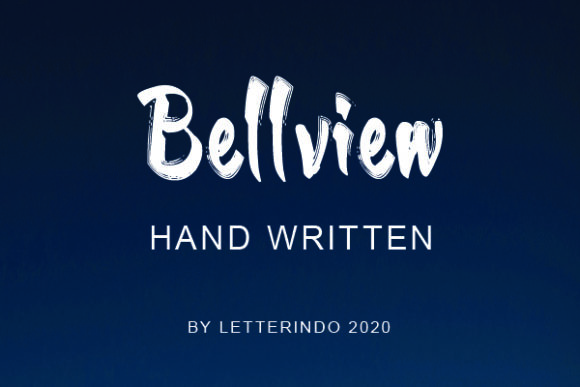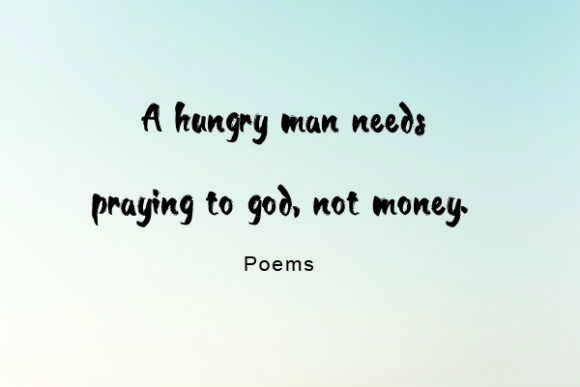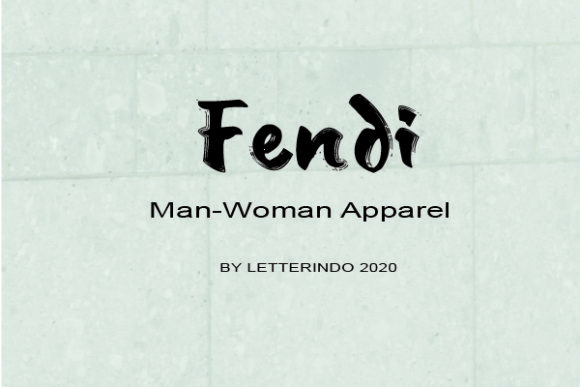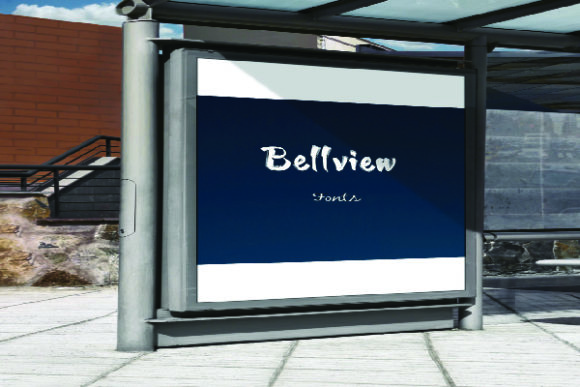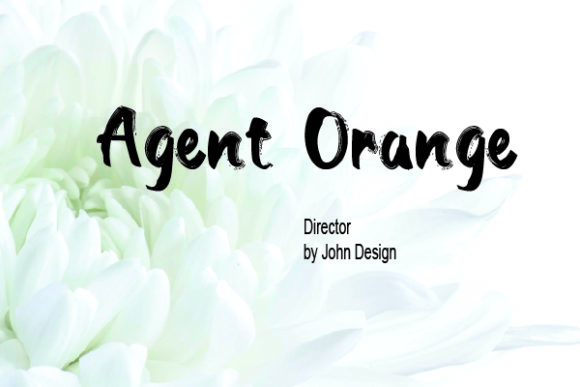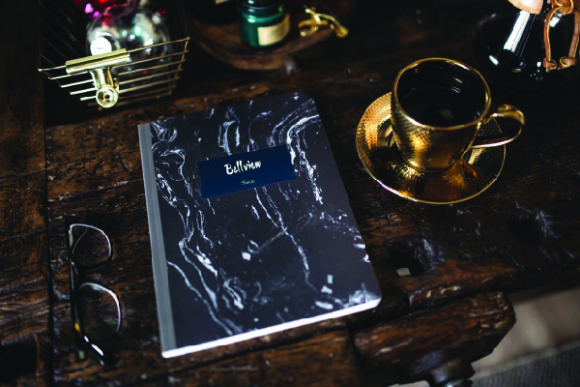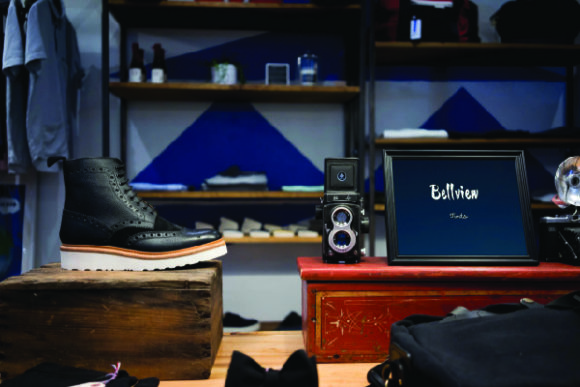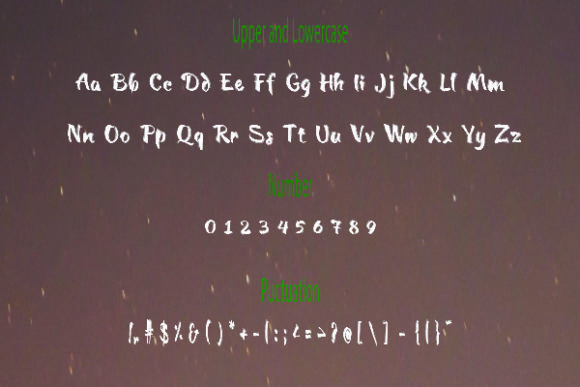
Bellview Font
About Bellview Font
Bellview is a cute handwritten font. Whether you’re looking for fonts for Instagram or calligraphy scripts for DIY projects, Bellview will turn any creative idea into a true piece of art!